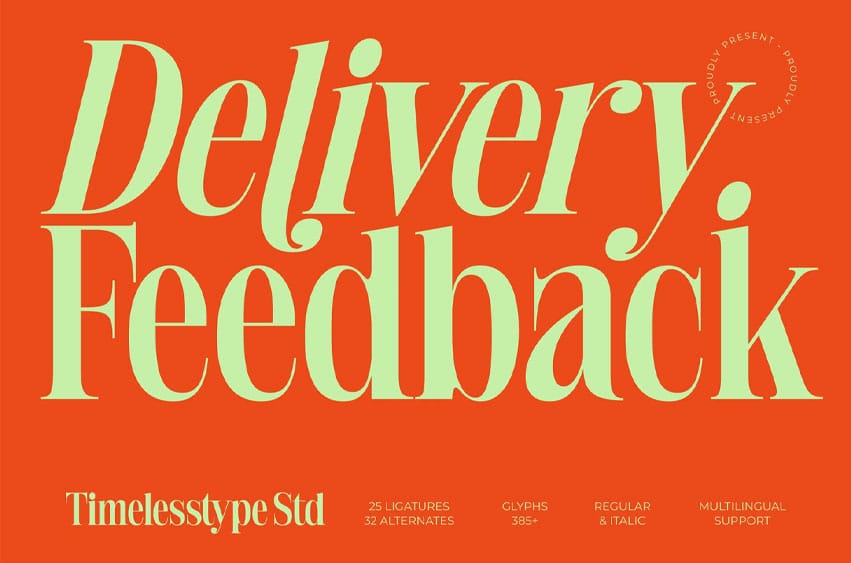
Delivery Feedback Font is a refined modern serif typeface crafted for designers who want elegance with a bold editorial punch. Featuring high-contrast strokes, smooth curves, and expressive terminals, this typeface delivers a strong visual presence suitable for luxury branding and contemporary magazine-style layouts.
With 25 stylish ligatures and 32 alternates, every word can become a unique typographic composition. Perfect for logos, headlines, beauty branding, packaging, and high-end advertising, Delivery Feedback blends sophistication with modern flair—making it a versatile choice for standout creative projects. Multilingual support and both Regular & Italic styles allow seamless use across global designs.